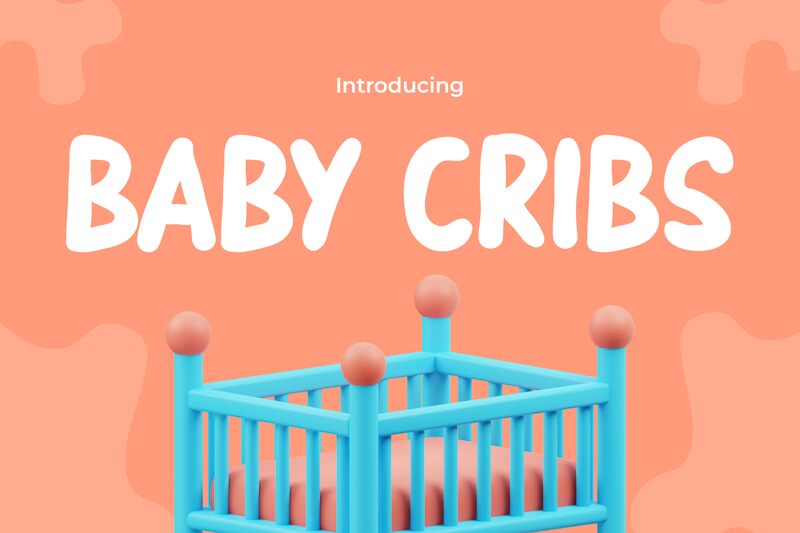
Baby Cribs is a free handwritten font crafted by Pinisiart, designed to evoke an informal and friendly feel. The rounded, whimsical, and childlike design makes it approachable and modern, integrating a soft appearance with a casual vibe. The charming and playful nature of this font lends itself to projects seeking an inviting and contemporary look.
This font shines in designs such as invitations, posters, greeting cards, logos, book covers, merchandises, and educational materials. It’s also excellent for children’s books, websites, social media graphics, scrapbooks, journals, quote designs, and projects that aim for a personalized touch.